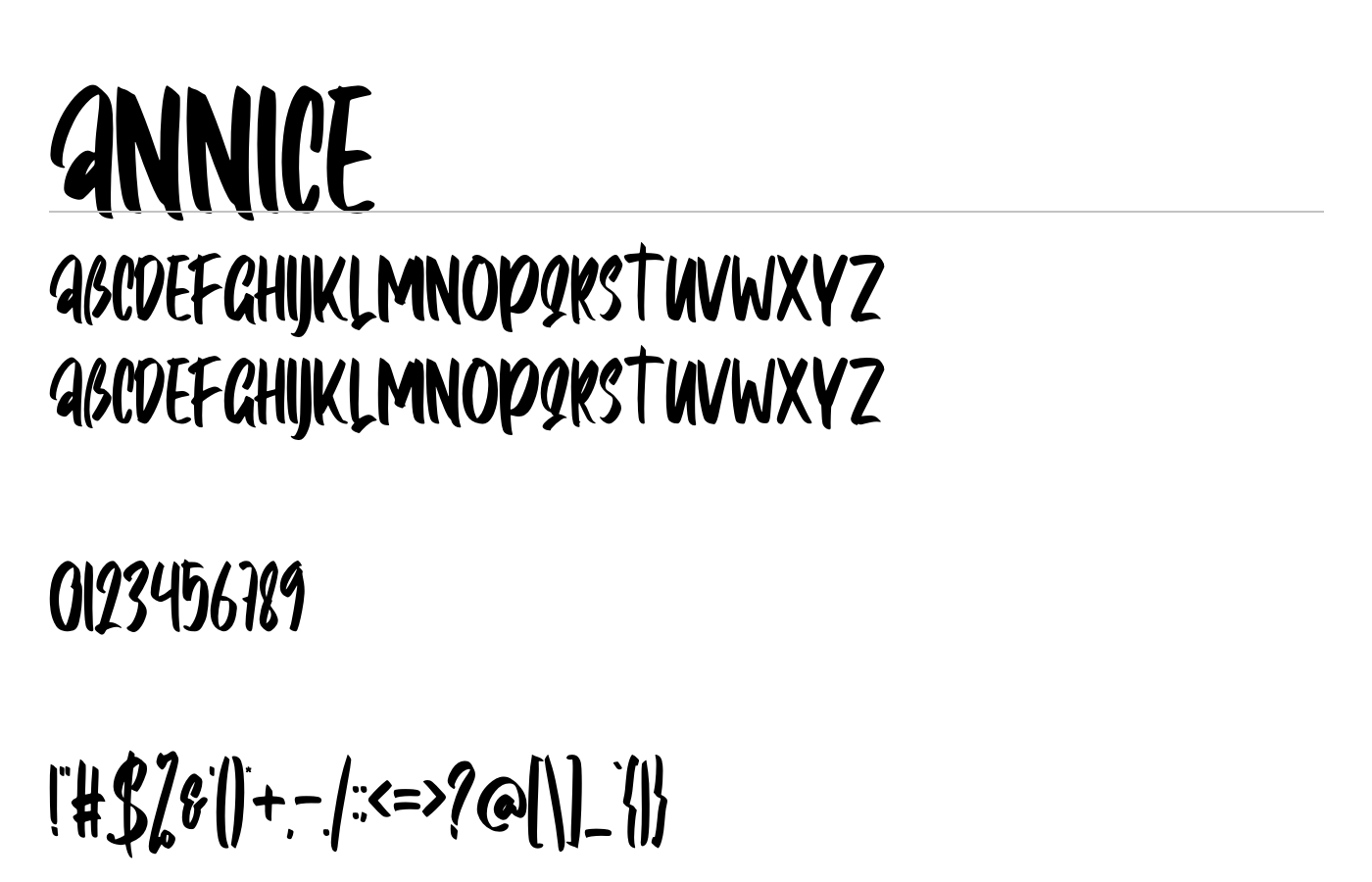
Annice is a bold, hand-drawn script font with a tall, condensed style and playful energy. Its irregular, brush-like strokes give it a casual yet expressive personality, making it perfect for creative branding, posters, and eye-catching headlines that need a personal, artistic touch. This font works best where a lively, informal vibe is desired, especially in designs seeking a handcrafted, unique feel.
Annice Font
About Annice Font